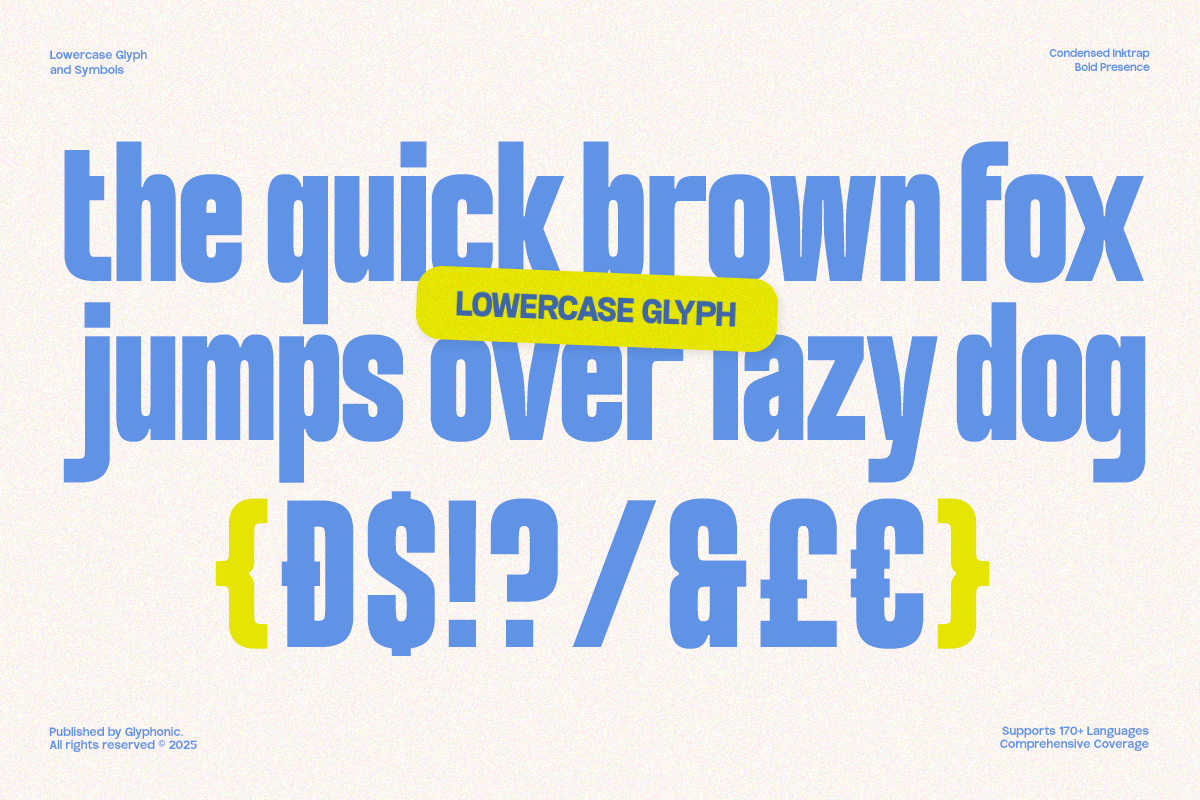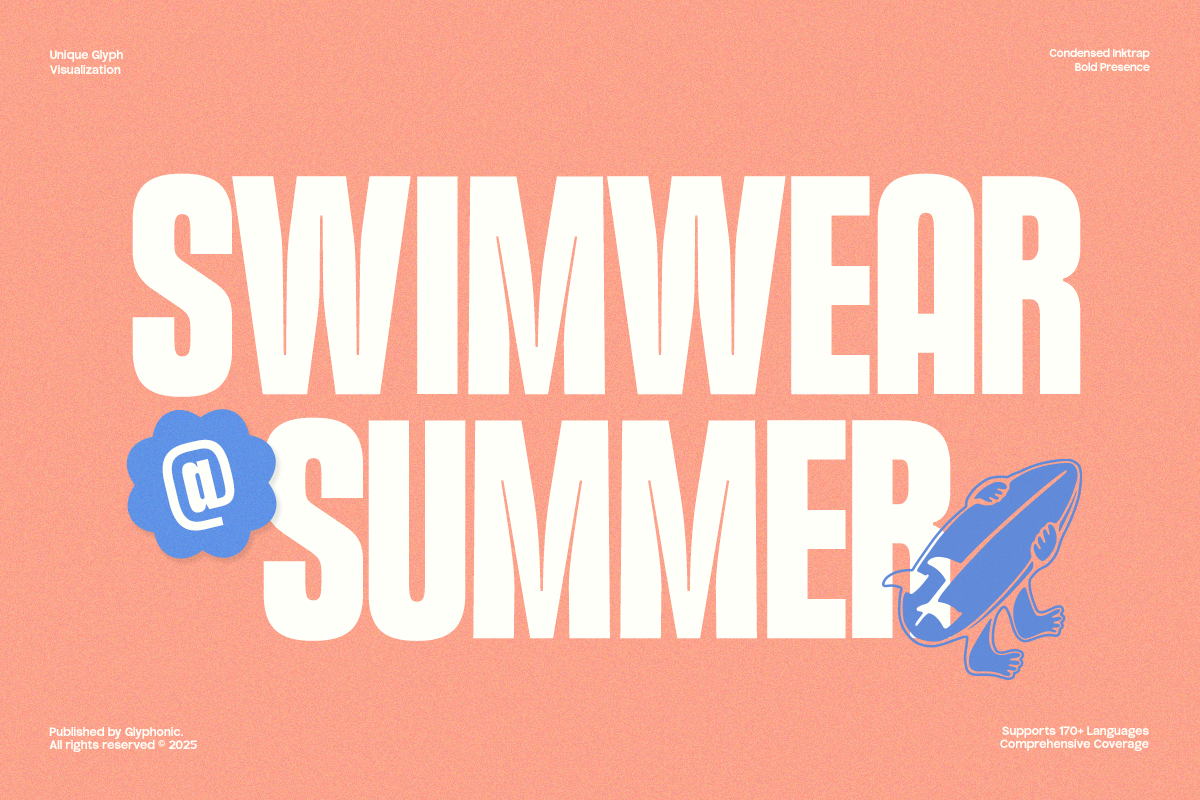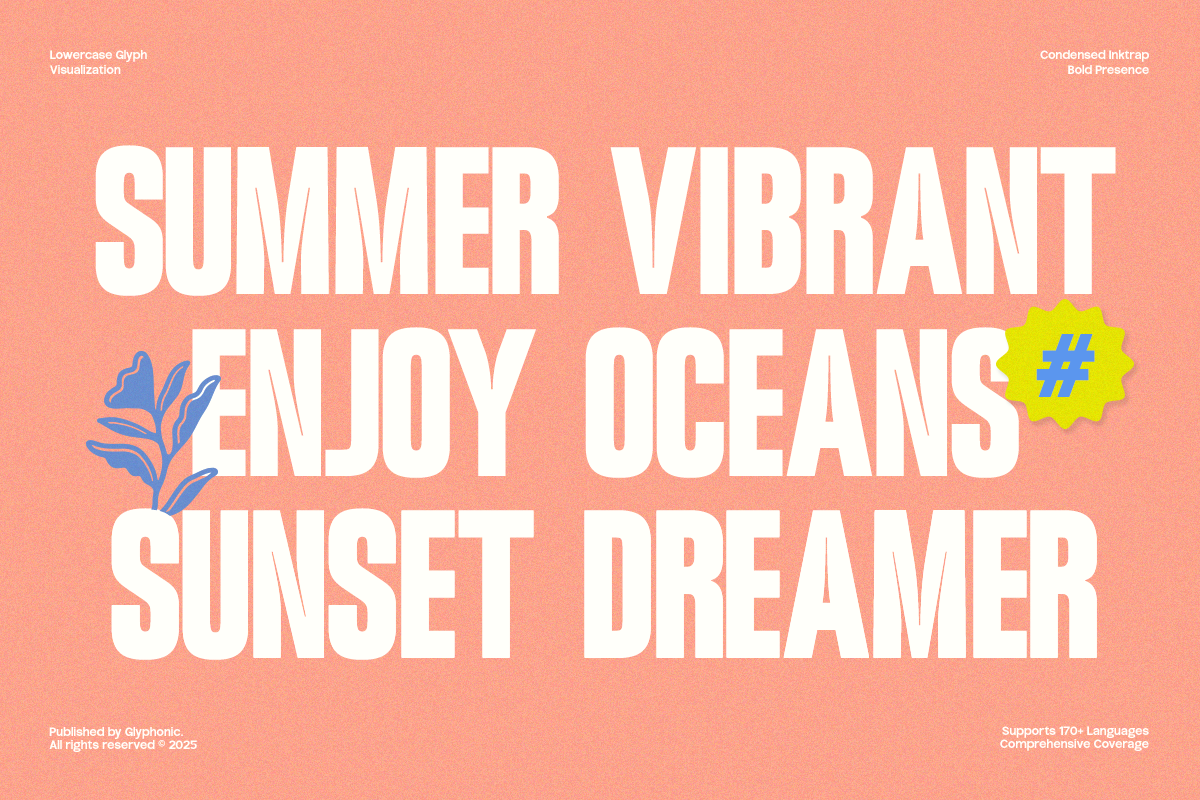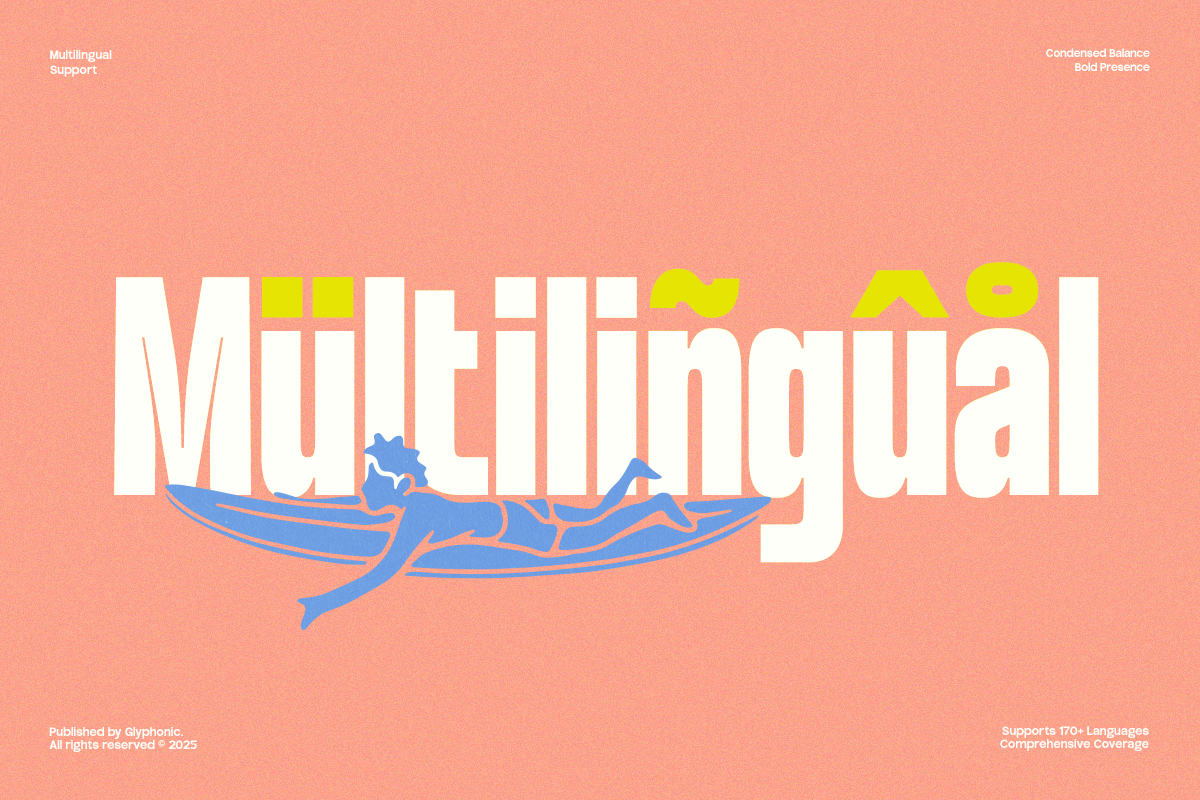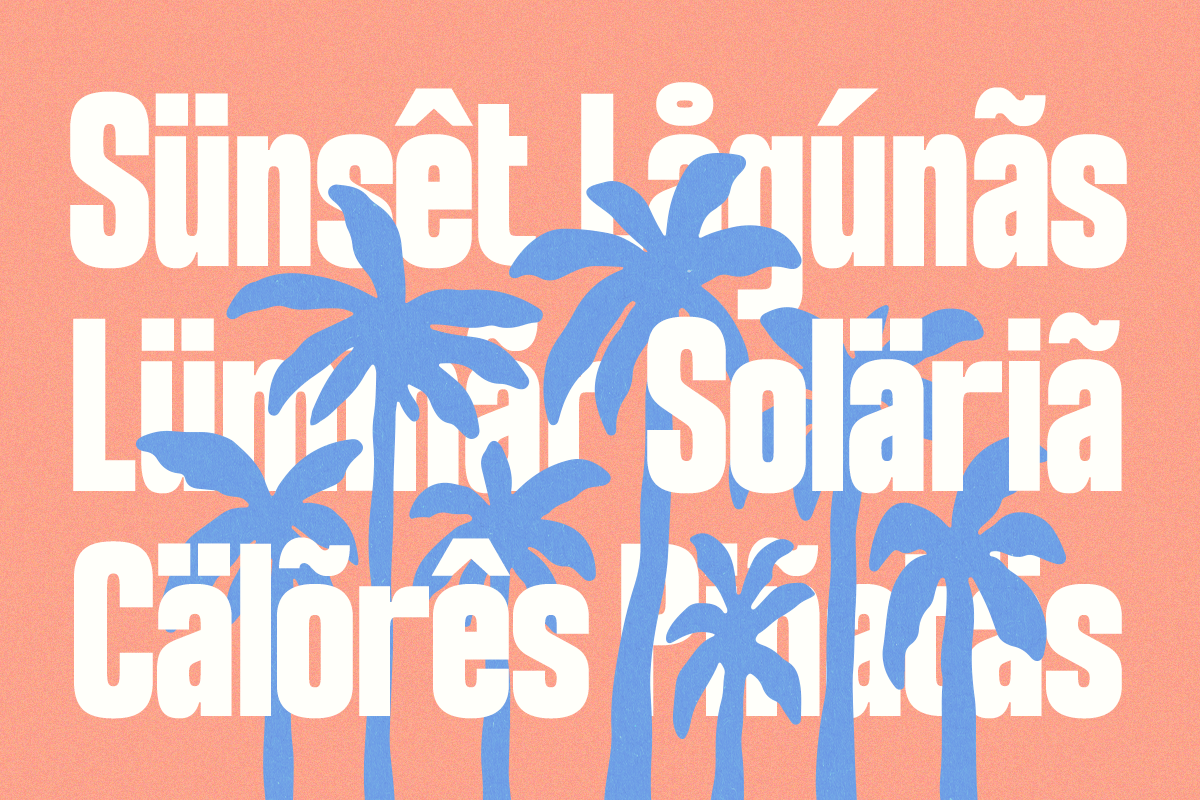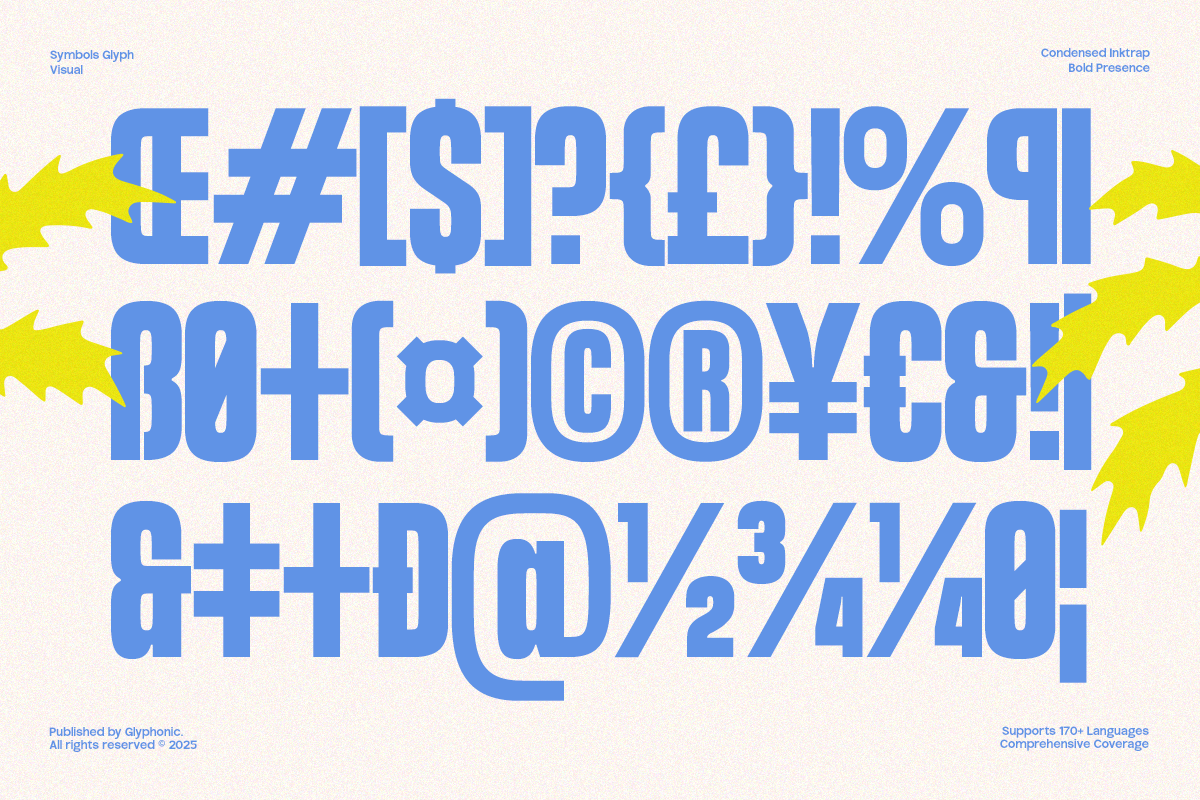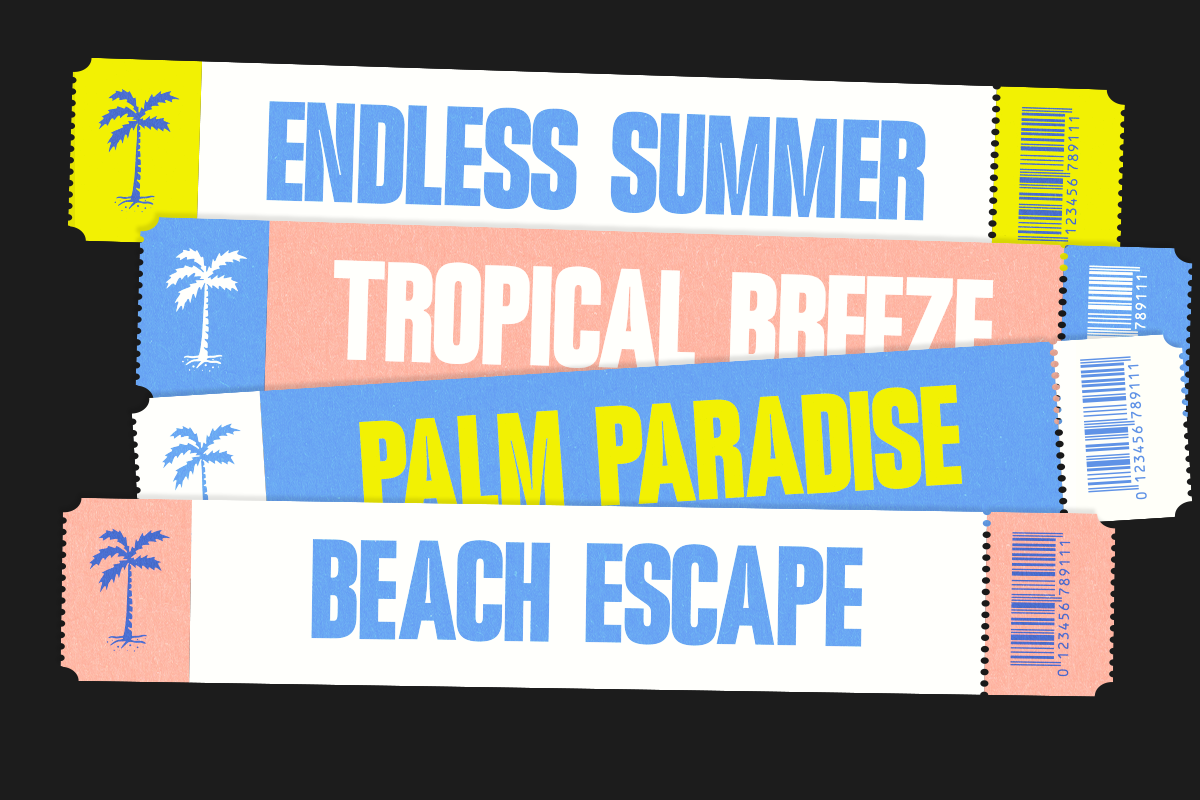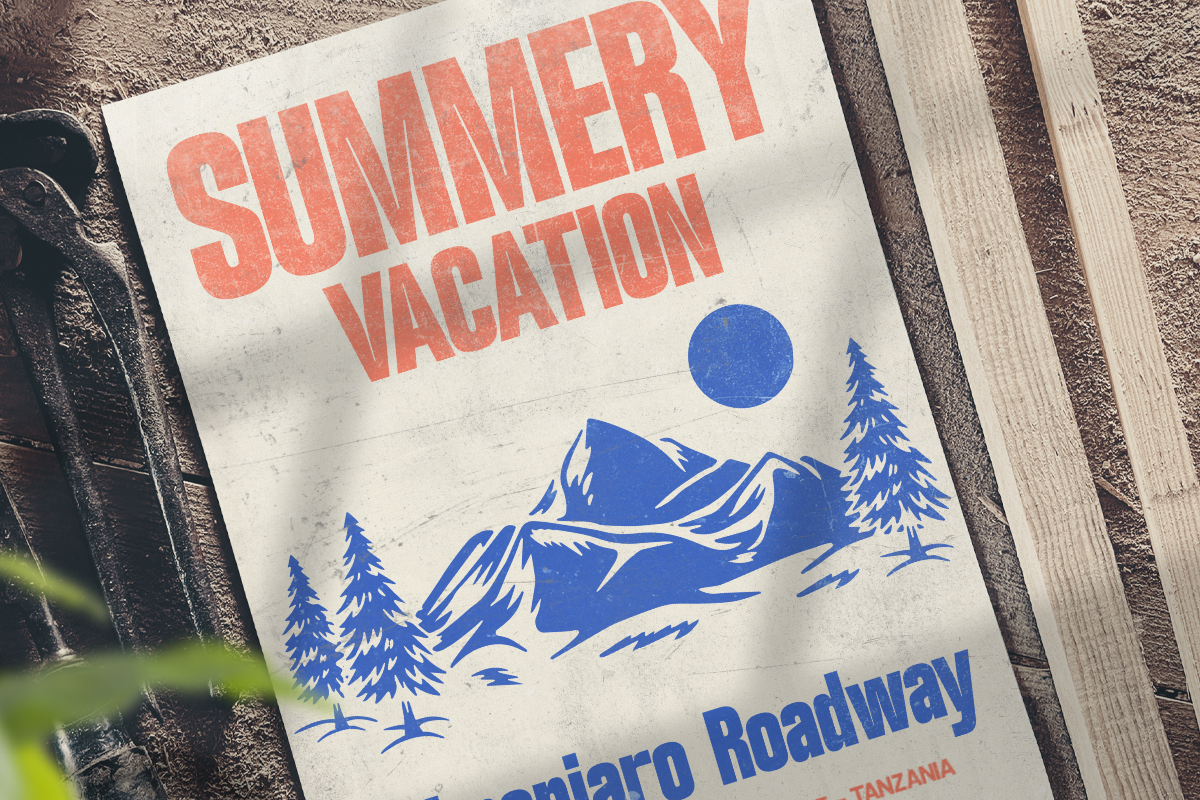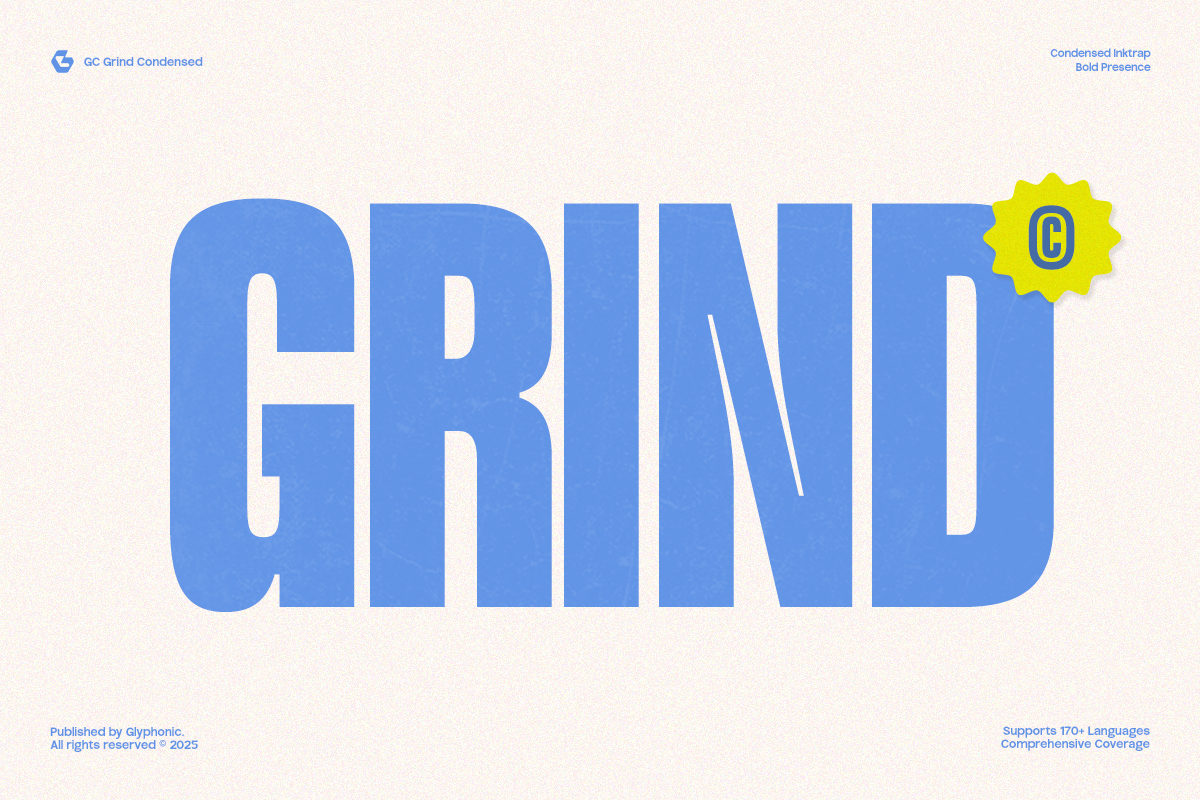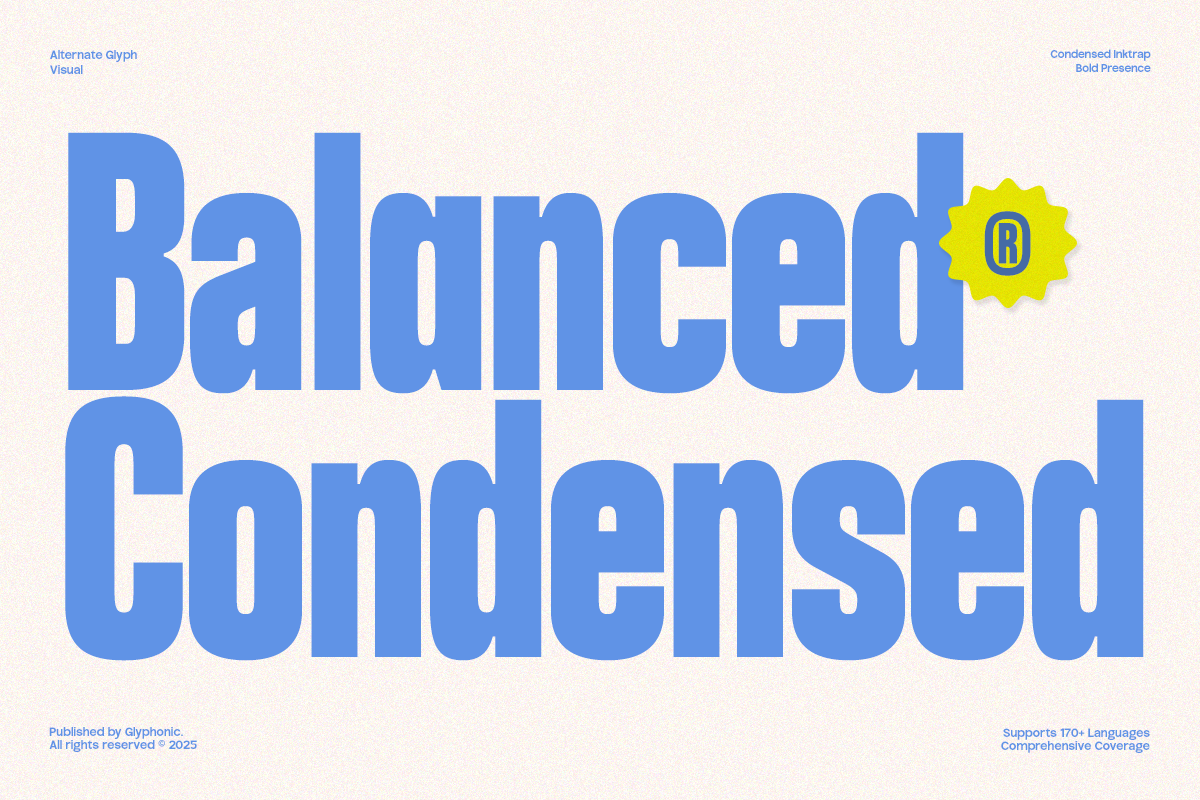
GC Grind - Bold Condensed Fonts
GC Grind by Glyphonic – Bold Condensed Fonts is a striking typeface that embodies strength, impact, and modern versatility. Designed with bold condensed proportions, it creates a powerful visual presence that commands attention in every context. Perfect for posters, headlines, branding, sports, and urban-inspired designs, this font delivers energy, confidence, and clarity in every letter.
With its sharp edges, tight spacing, and assertive stance, GC Grind offers a contemporary look that feels dynamic and memorable. Whether you’re crafting bold editorial statements, standout packaging, or digital visuals that demand attention, this font brings raw power and modern grit to your typography.
Features:
- Uppercase & Lowercase
- Numbers & Punctuation
- Multilingual Support (170+ Languages)
Make your design bold, condensed, and full of impact with GC Grind – Bold Condensed Fonts.